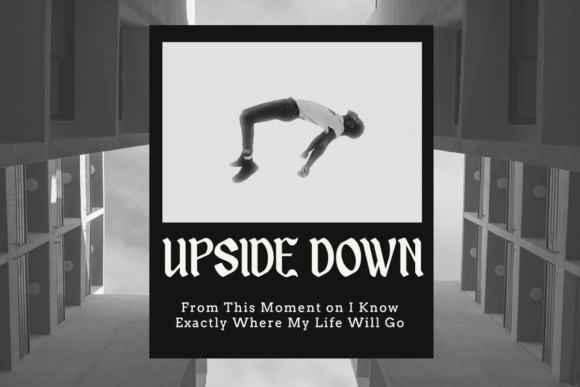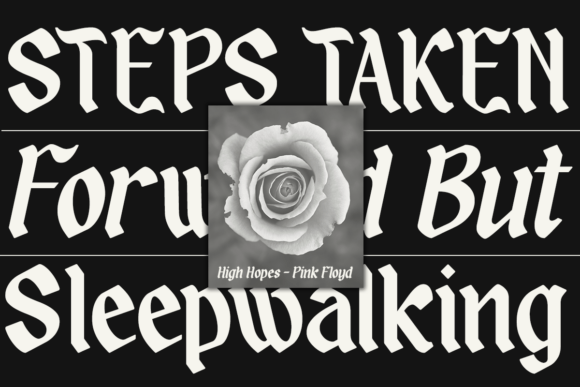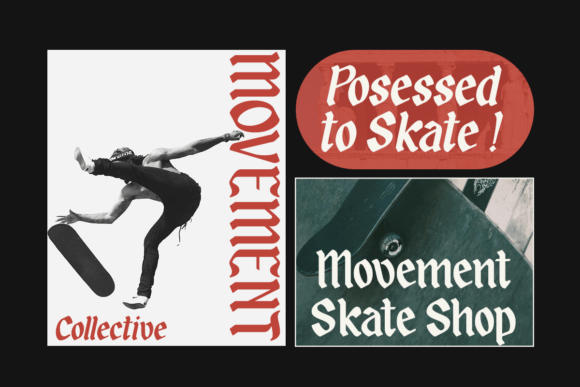
Introduction to Sandey Molse Font
Sandey Molse is a blackletter display typeface.
Its distinctive diagonal slice on each glyph seamlessly blends modern sophistication with a touch of rigidity It is ideal for those seeking a bold and refined look for their projects.
Key Features of Sandey Molse Font
Why Choose Sandey Molse Font?